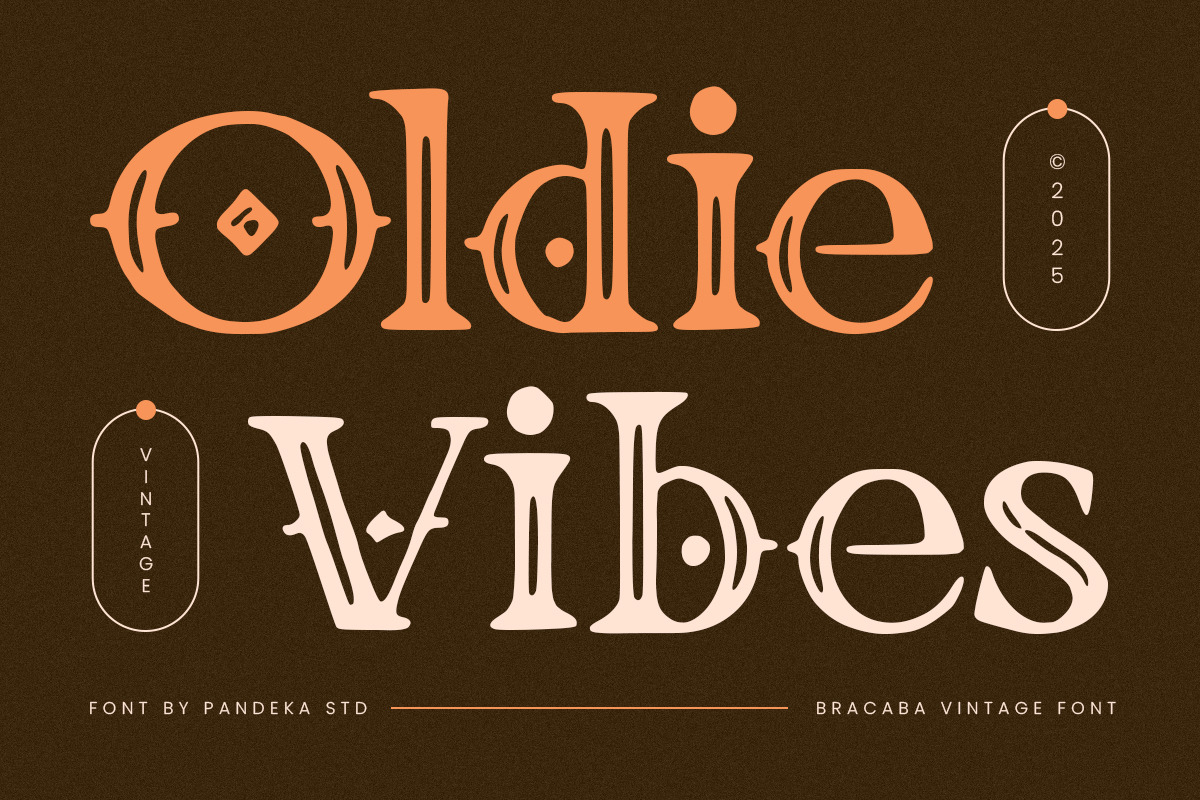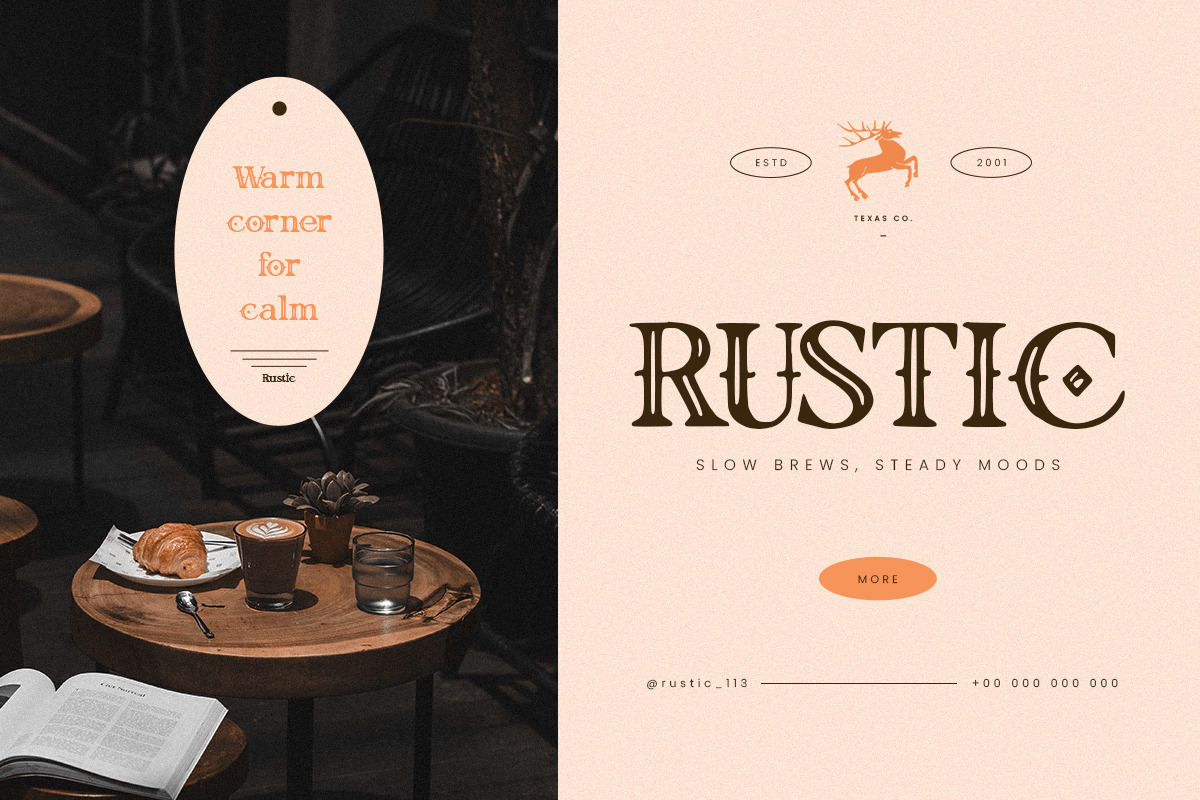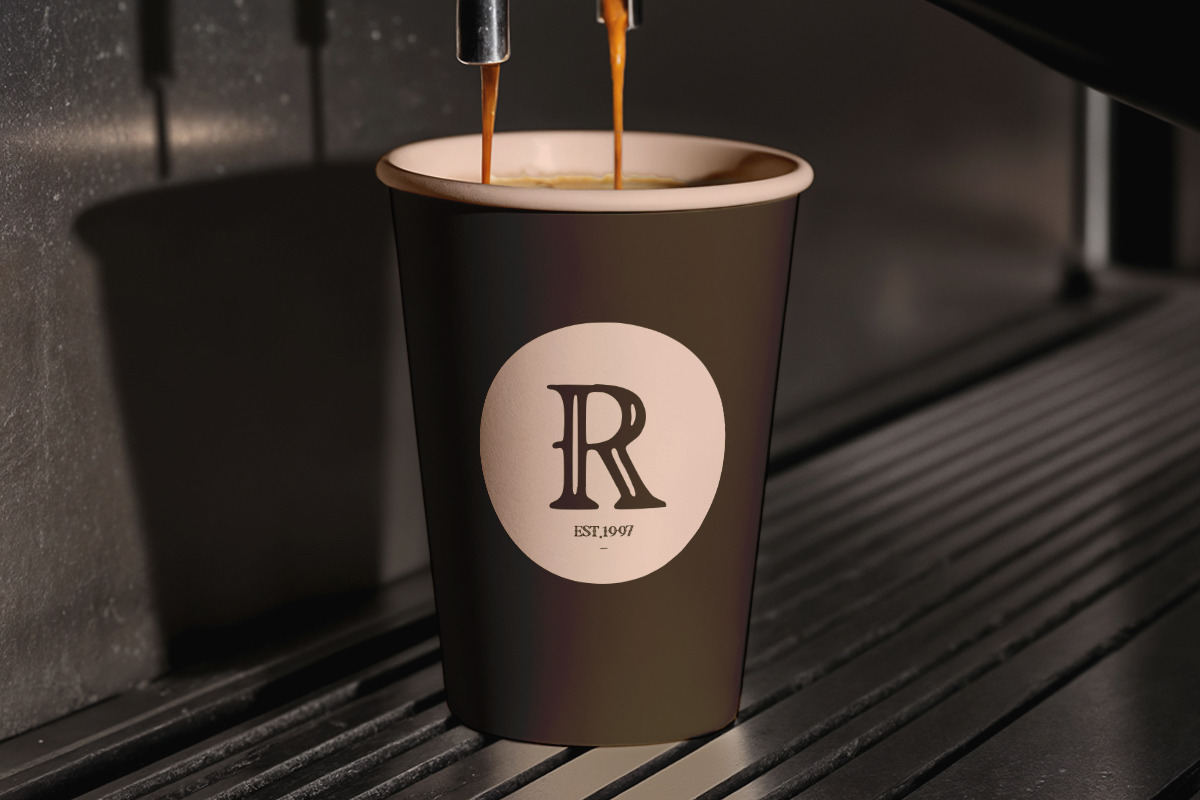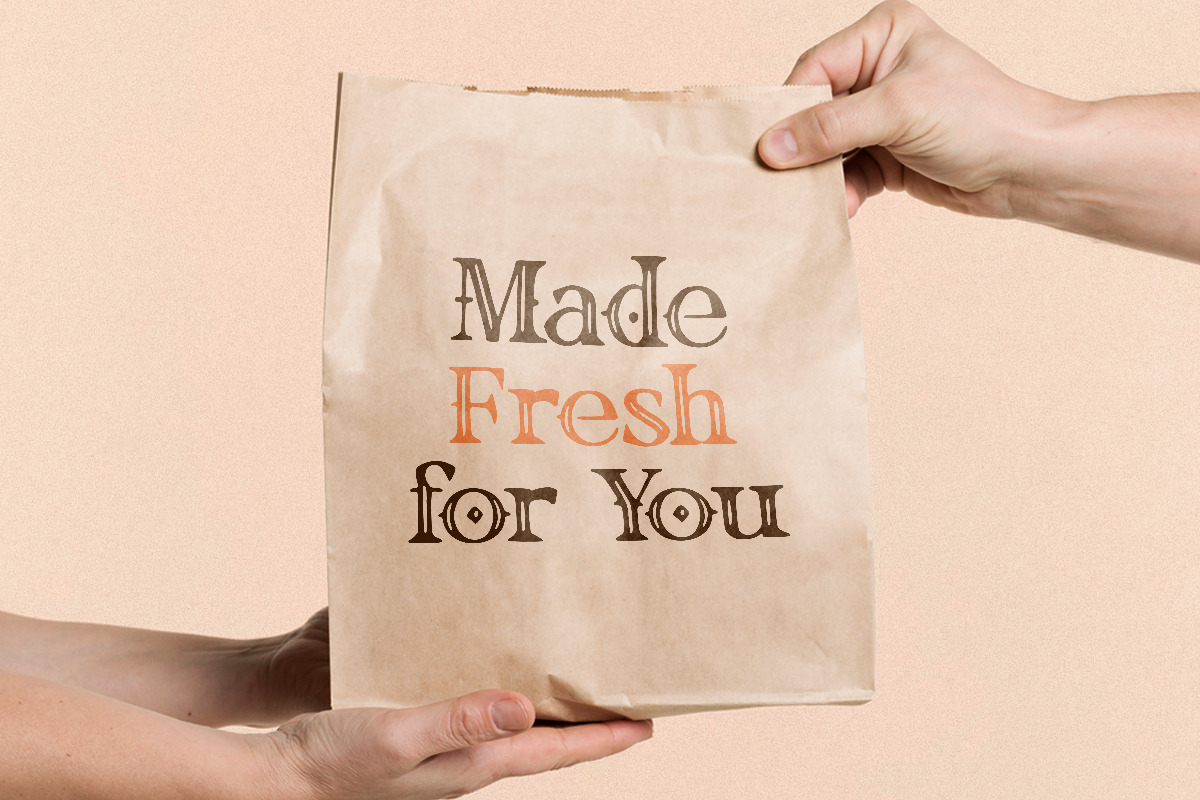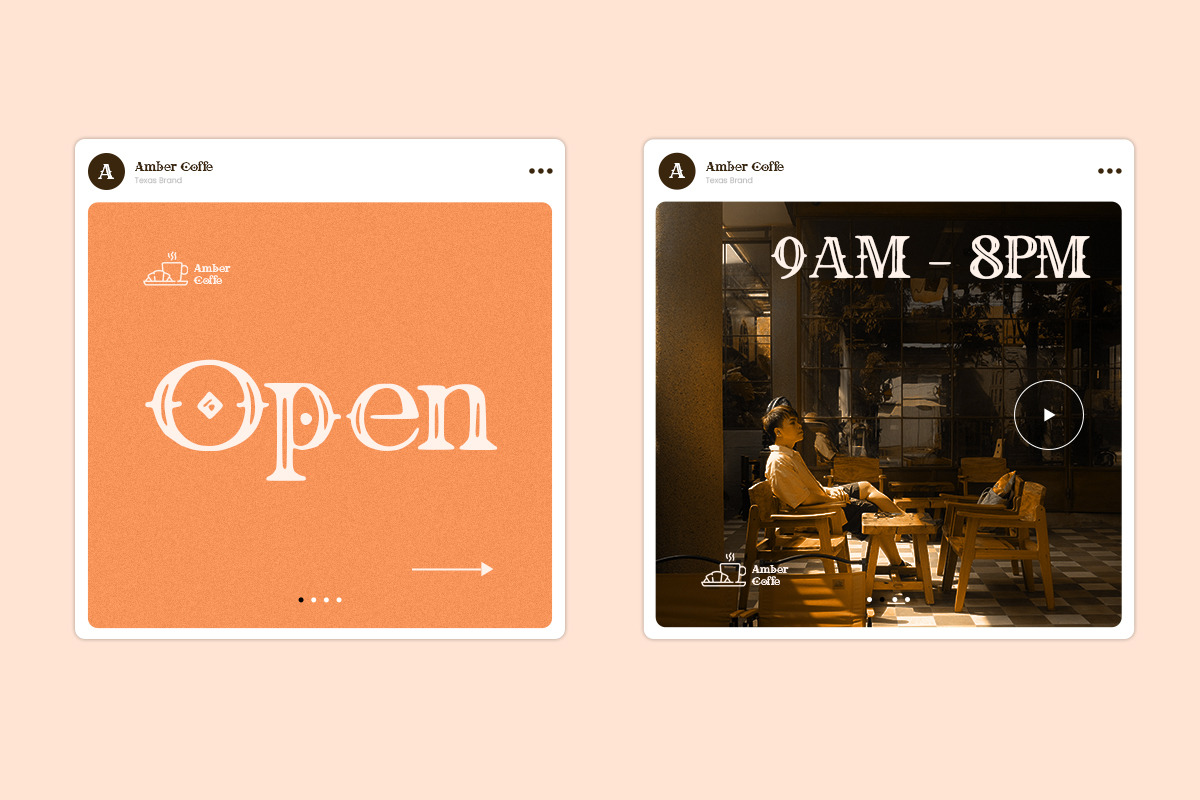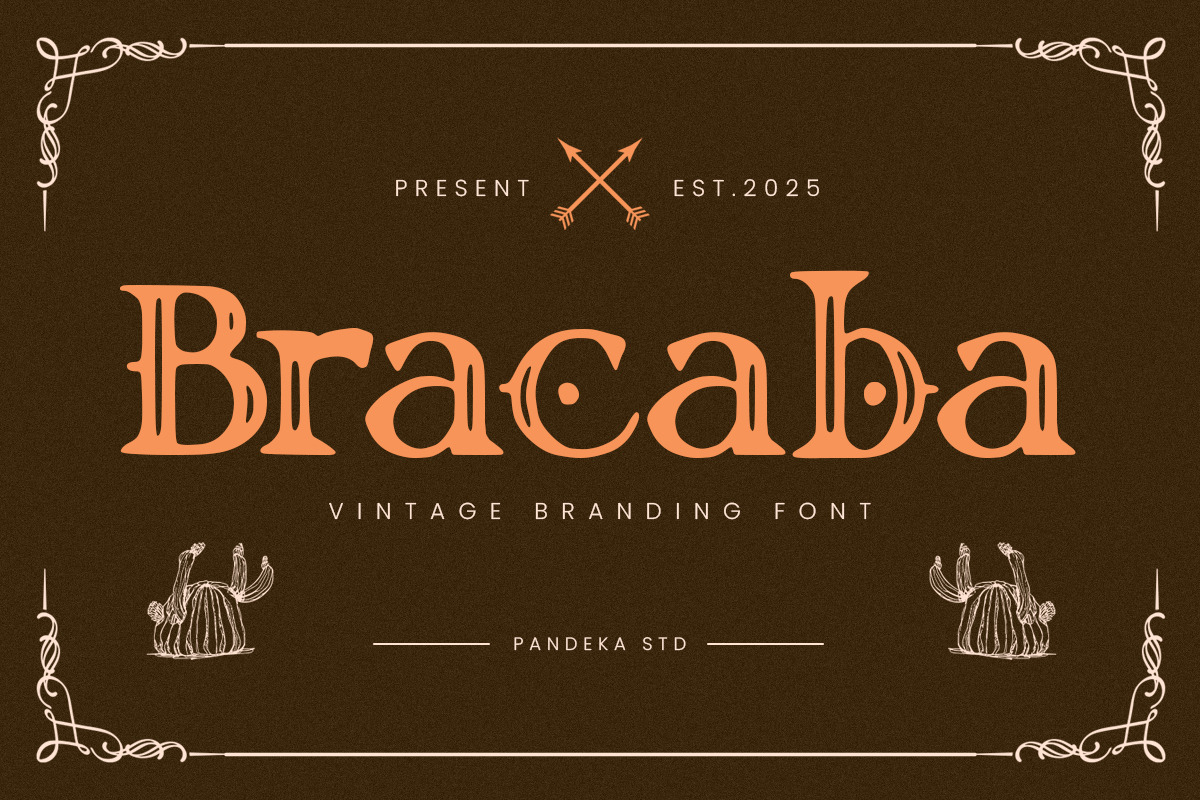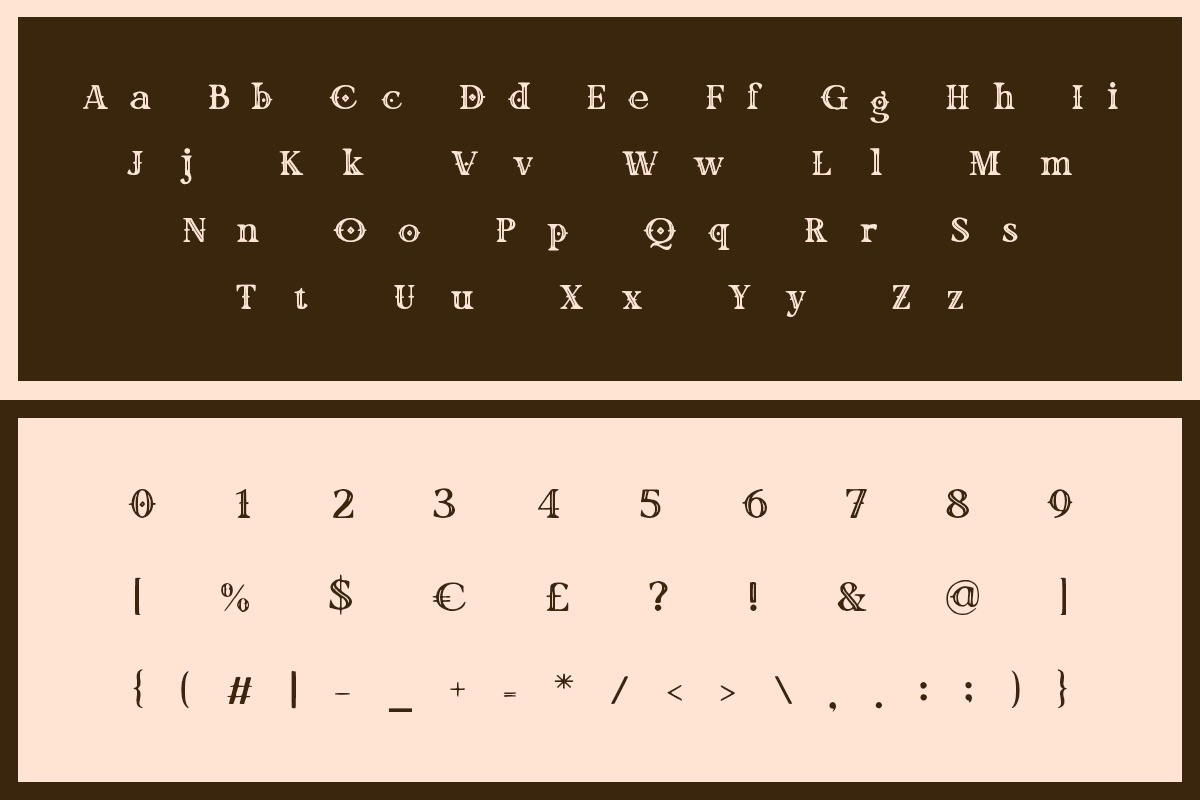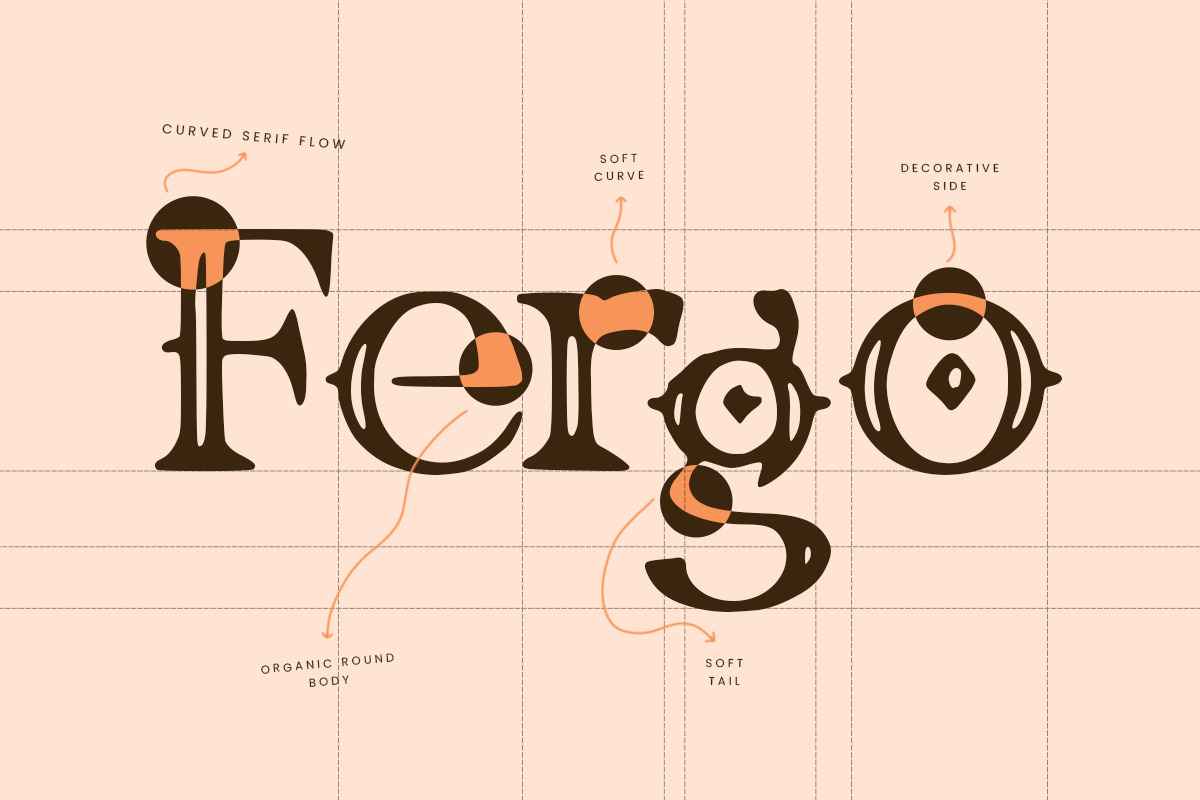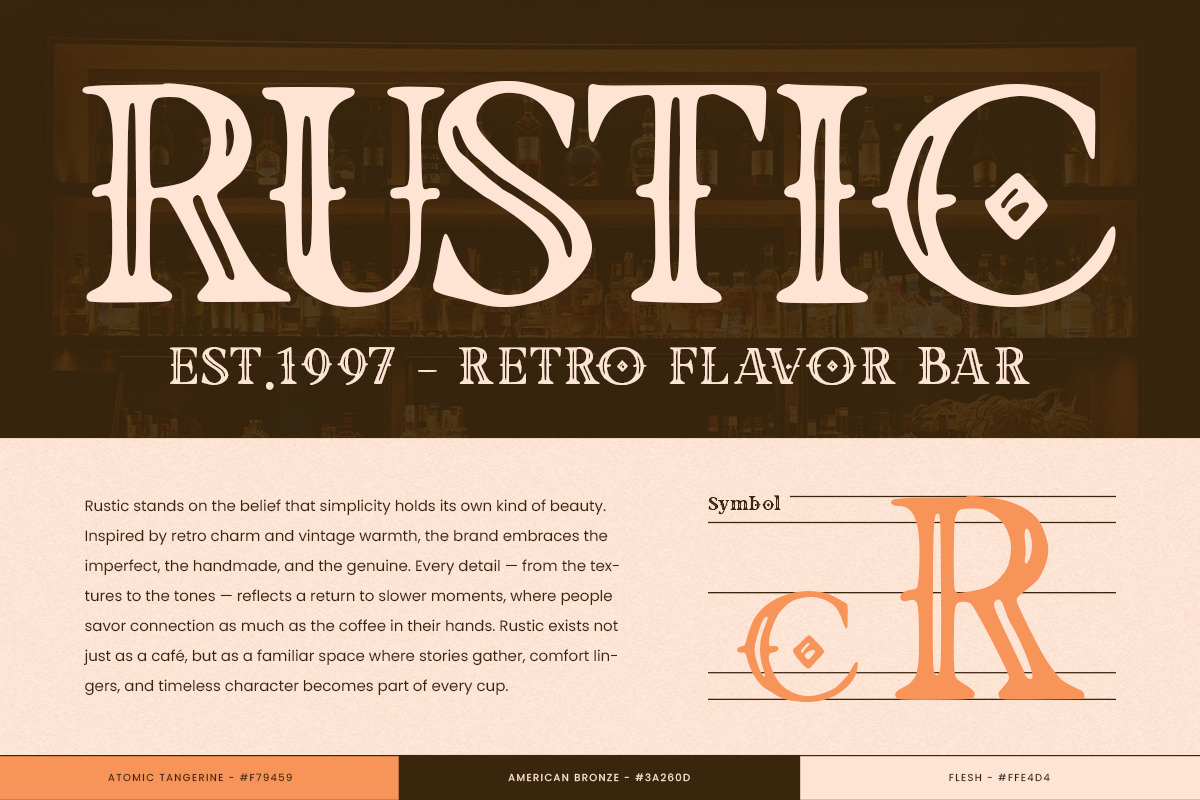
Bracaba - Vintage Decorative Font
Bracaba is a vintage decorative font designed in a single Regular style, combining ornamental curves with bold retro character. Its detailed shapes, classic serif structure, and subtle decorative touches give every word an authentic old-time charm—perfect for branding with personality and nostalgic flair.
This typeface was crafted for café identities, menus, vintage logos, product packaging, editorial layouts, signage, and promotional materials that need a refined decorative edge. Bracaba brings a warm heritage look to your designs while remaining clean, readable, and stylish for modern creative projects.
- 1 Style: Regular
- Full Character Set: Uppercase, lowercase, numbers, symbols, and punctuation